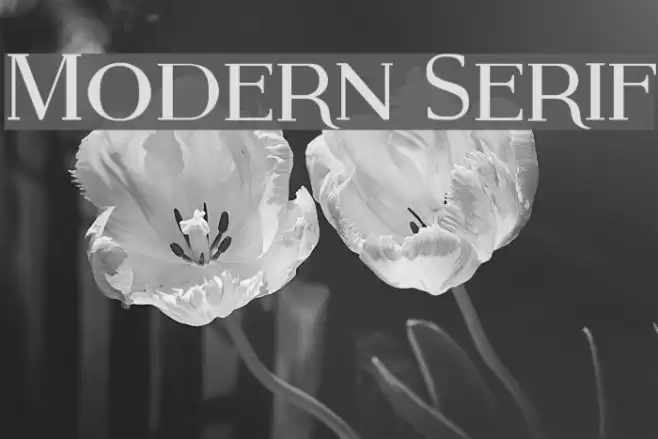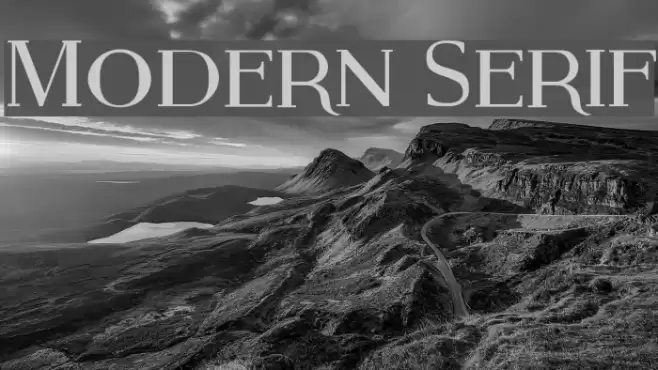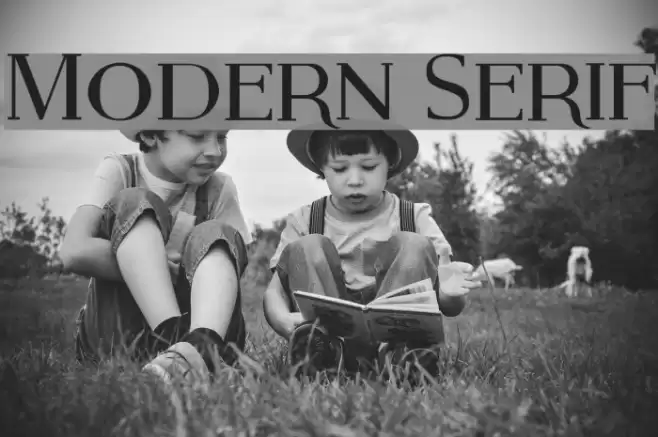
Modern Serif Font
Modern Serif Description
This font exhibits a refined and elegant serif style, characterized by its sharp, clean lines and balanced proportions. The serifs are pronounced yet not overly decorative, providing a modern touch to the classic serif form. The uppercase letters are tall and commanding, while the lowercase letters maintain a consistent x-height, ensuring readability. The numerals are well-proportioned, aligning seamlessly with the overall aesthetic. Special characters are designed with the same attention to detail, making this font versatile for various applications. The stroke contrast is moderate, offering a sophisticated appearance without compromising clarity.
A modern serif font with clean lines and moderate contrast, perfect for elegant and readable text from Uncategorized fonts.
- Proposed Projects: Ideal for editorial design, branding, and sophisticated print materials such as invitations or business cards.